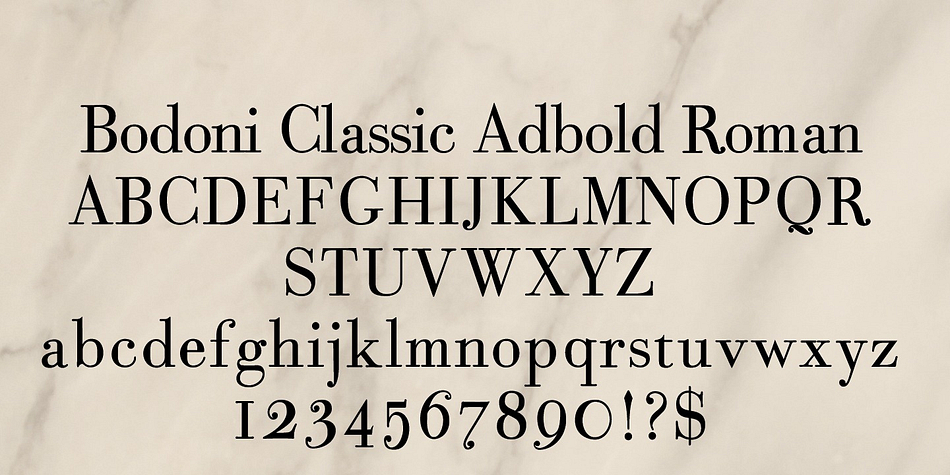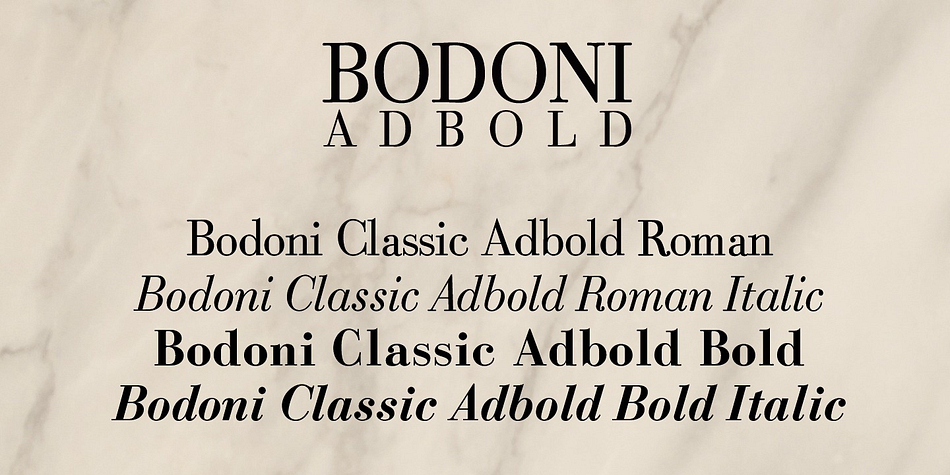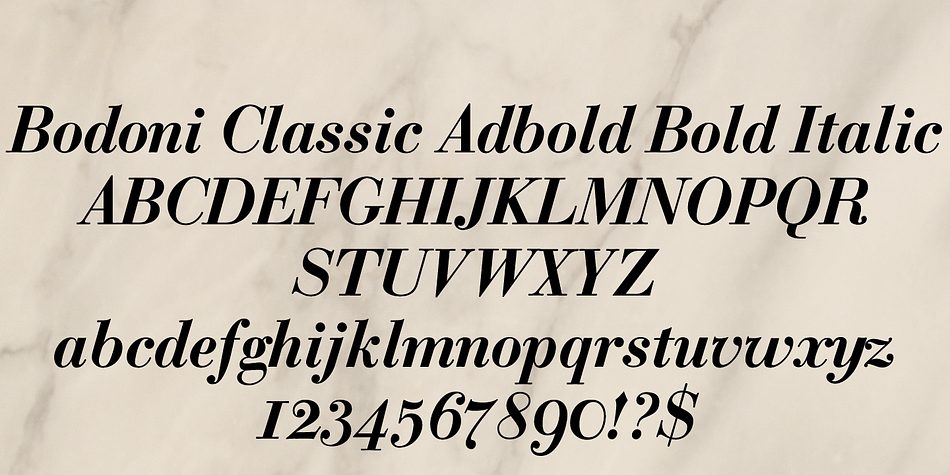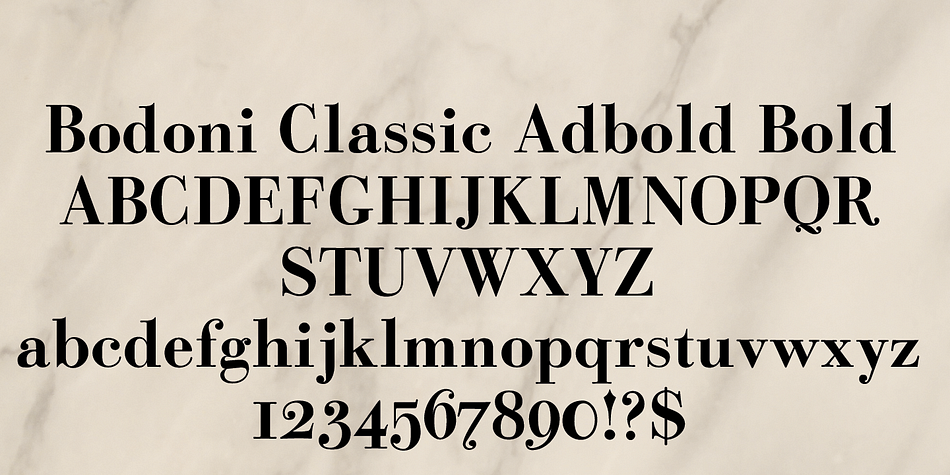
Designed by Gert Wiescher, Bodoni Classic Adbold is a serif font family. This typeface has four styles and was published by Wiescher-Design.
A take on Bodoni Classic, with more squared off serifs, as opposed to the original rounded serifs and slightly concave feet.
Designer | Gert Wiescher |